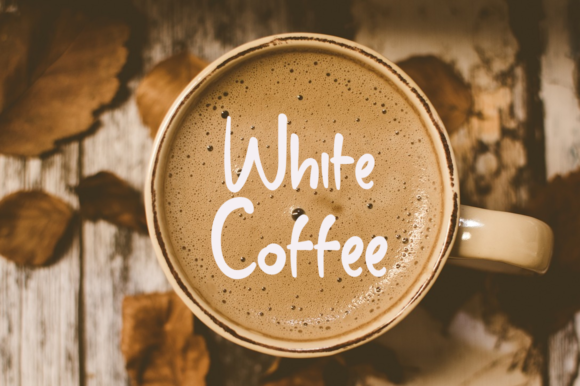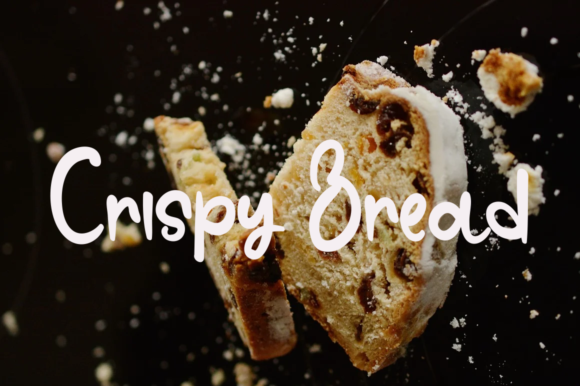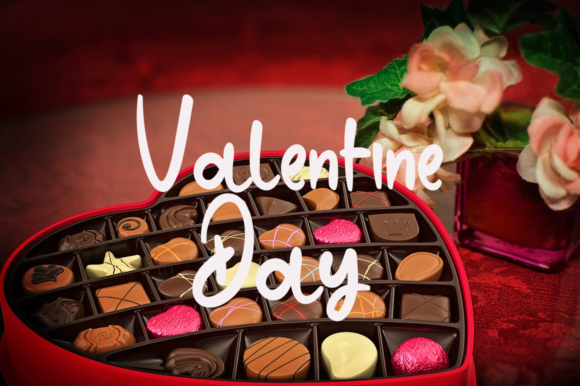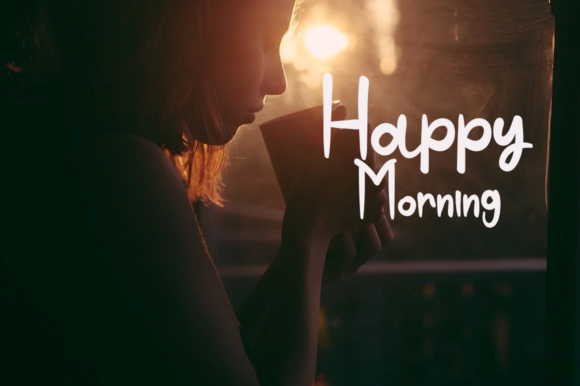
The Sweetest Touch: Introducing Baby Love Font
Have you ever sat down with a blank page, a spark of inspiration, and a desire to create something truly special? For designers, this moment is all too familiar. The blank page can be both a blessing and a curse, offering endless possibilities but also a daunting sense of uncertainty. It’s in these moments that the right font can make all the difference.
Enter the Baby Love Font, a delicate and charming handwritten font that’s sure to add a touch of joy and romance to any design. This genuine cursive font is perfect for designers looking to create a sense of whimsy and elegance in their projects. Whether you’re designing a wedding invitation, a nursery decor, or a romantic card, Baby Love Font is the perfect choice to add a personal and loving touch.
With its dainty and gentle feel, Baby Love Font is a valuable addition to any designer’s toolkit. Its versatility and charm make it an ideal font for a wide range of design ideas, from baby shower invitations to wedding decorations, and everything in between.
- Unique Characteristics: Baby Love Font features a playful, cursive design with a mix of rounded and pointed shapes, perfect for creating a whimsical and child-friendly atmosphere
Designer Review: Baby Love Font
As a designer, I was excited to try out the Baby Love Font and see how it would work for various projects. Here’s my honest review.
- The font’s playful and whimsical feel is perfect for creating eye-catching graphics and titles.
- The font is highly customizable, allowing designers to easily adjust the size, color, and spacing to suit their needs.
- The font’s cursive script makes it ideal for creating handwritten-style text, adding a personal touch to designs.
- The font’s bold and italics styles provide a nice contrast to the regular script, making it easy to create visual interest.
- The font may not be suitable for body text, as it can be difficult to read in smaller sizes.
- The font’s playful feel may not be suitable for all types of projects, such as formal or corporate designs.
Overall, I think the Baby Love Font is a great addition to any designer’s toolkit. While it may have some limitations, its playful and customizable nature make it perfect for creating unique and eye-catching designs. Just be mindful of its limitations and use it wisely.
Getting the Most Out of Baby Love Font
To get the most out of Baby Love Font, try the following:
- Use it for titles and headings to add a touch of whimsy and playfulness.
- Combine it with other fonts for a unique and eclectic look.
Baby Love Font is perfect for:
- Children’s birthday invitations and party decorations.
- Baby shower invitations and decorations.
- Children’s book covers and illustrations.